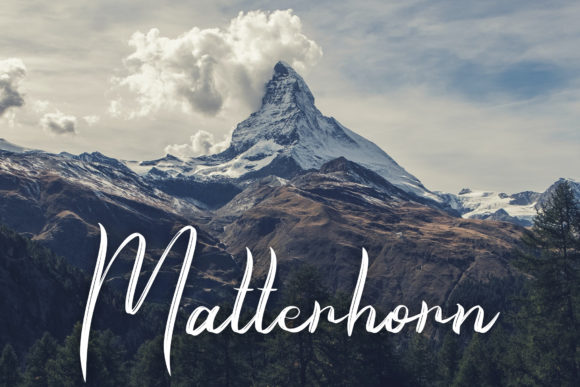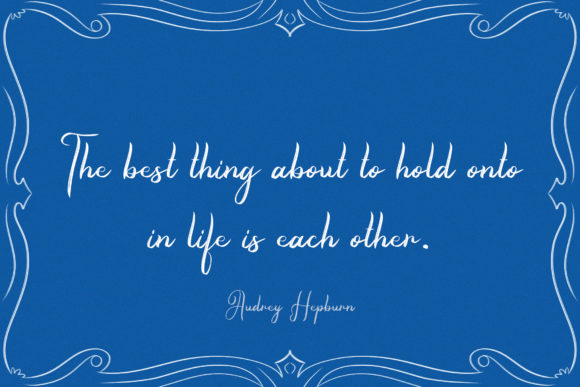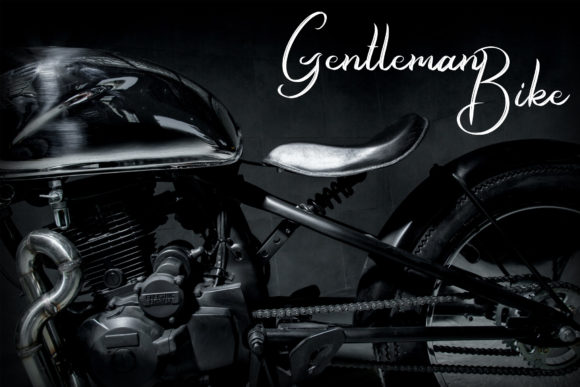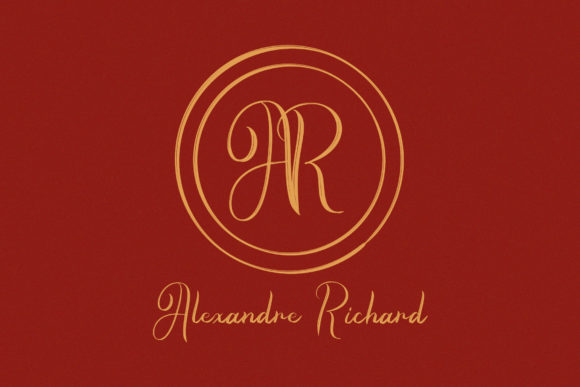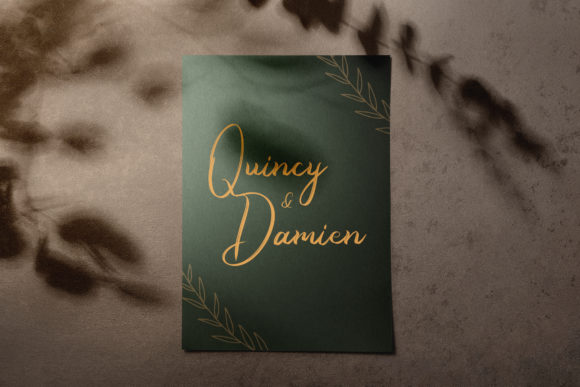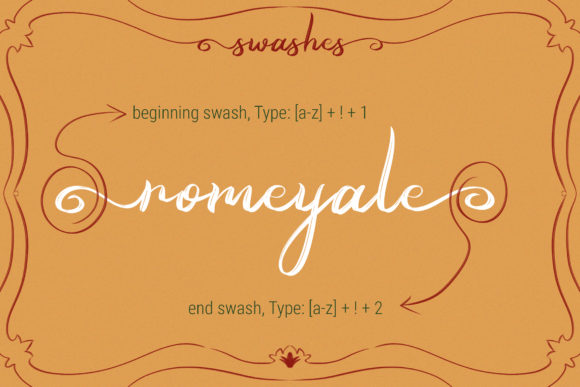
Introduction to Romeyale Font
As a designer, there’s nothing quite like the thrill of stumbling upon the perfect font to elevate your creative project. For me, that moment came when I discovered the Romeyale Font – a stunning natural brush font that exudes elegance and sophistication. Its beautiful swashes and refined lines instantly captured my attention, and I knew I had to share it with fellow designers.
The Romeyale Font is more than just a pretty face; it’s a valuable asset for designers looking to add a touch of high quality to their work. Whether you’re crafting a branding project, designing packaging, or creating a wedding invitation, this font is sure to impress. With its transparent background and versatile style, the Romeyale Font is a design resource that’s both free to download and incredibly versatile.
- Unique, elegant script font perfect for wedding invitations, quotes, and more
Honest Review: Romeyale Font
I recently came across the Romeyale Font, and I’m excited to share my thoughts on this creative design resource. This font is a fantastic addition to any design project, offering a unique and elegant aesthetic that’s perfect for making a statement.
What works well with the Romeyale Font is its versatility and high quality. The font is available for free download, making it a great option for designers on a budget. It also features a transparent background, allowing for seamless integration with various design elements.
- ✨ Unique and elegant aesthetic
- ✨ High quality and versatile
- ✨ Transparent background for easy integration
However, there are a few limitations to consider. The font may not be suitable for all design projects, particularly those requiring a more traditional or formal look. Additionally, some users may experience issues with font rendering or compatibility.
Overall, I’m impressed with the Romeyale Font and its potential for elevating creative projects. While it may have some limitations, it’s a valuable design resource that’s definitely worth exploring.
Designing with Romeyale Font
The Romeyale Font is a high-quality design resource that offers a free download. It’s perfect for creative projects that require a unique and eye-catching look. With its transparent background, this font is ideal for use in digital designs.
Tips for Getting the Most Out of Romeyale Font
To get the most out of the Romeyale Font, experiment with different font sizes, colors, and combinations to create a unique look that suits your design. You can also use it in conjunction with other design elements to create a cohesive and eye-catching design.
Common Use Cases for Romeyale Font
The Romeyale Font is perfect for use in a variety of creative projects, including social media graphics, presentations, reports, and more. It’s also ideal for use in branding and marketing materials, such as logos and business cards.